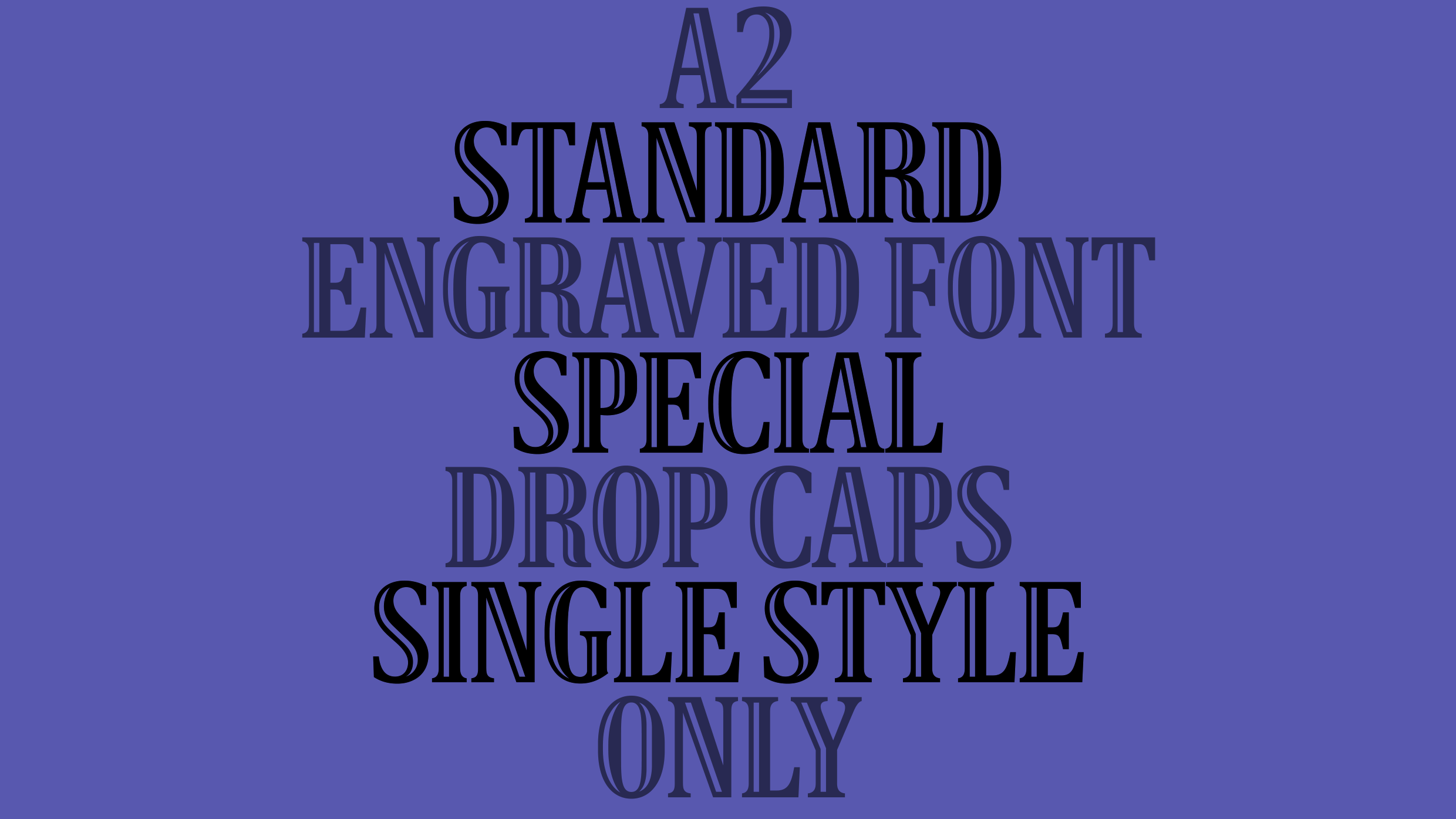
A2 Standard Engraved Bold
A2 Standard is a collection of fonts commissioned by the Evening Standard as part of their 2017–18 redesign. The bespoke font system comprises; Serif Text, Display, Sans, Sans Condensed, and Extra Condensed, with a special ‘Splash’ font for front pages – a total of 58 interconnected fonts. The Evening Standard is a free daily newspaper published in 850,000 copies, Monday to Friday, in tabloid format in London. It is the primary local evening paper for London and the surrounding area, with coverage of national and international news and City of London finance.
| Font name: | A2 Standard Engraved |
| Font category: | Serif |
| Manufacturer: | A2-TYPE |
| Designer: | Henrik Kubel |